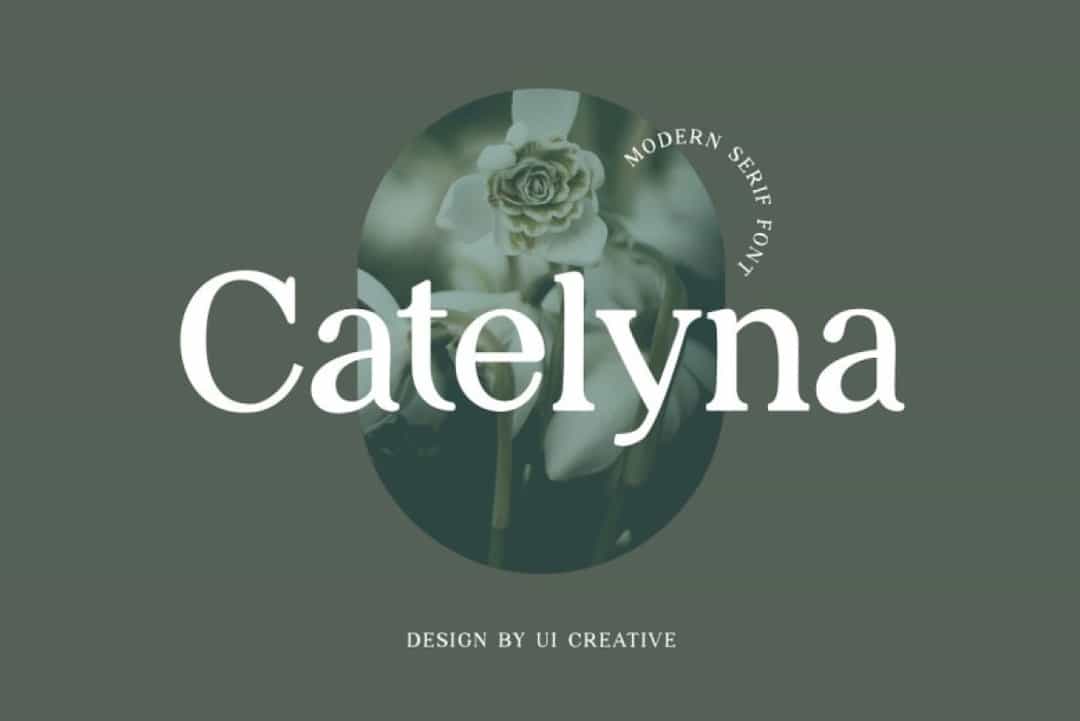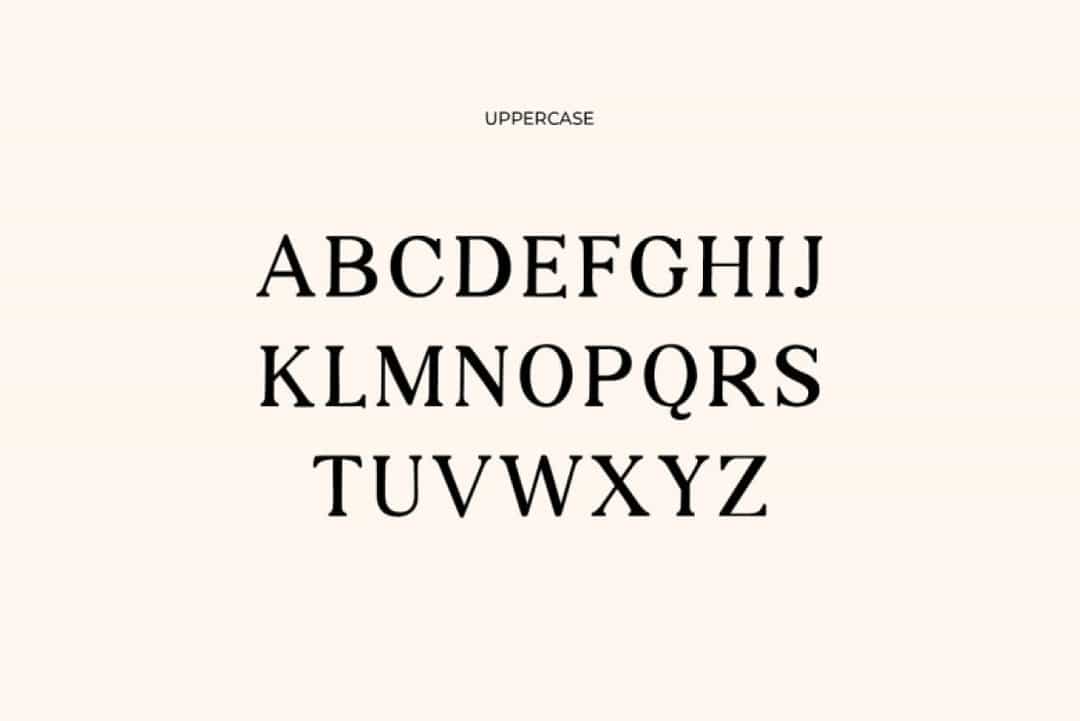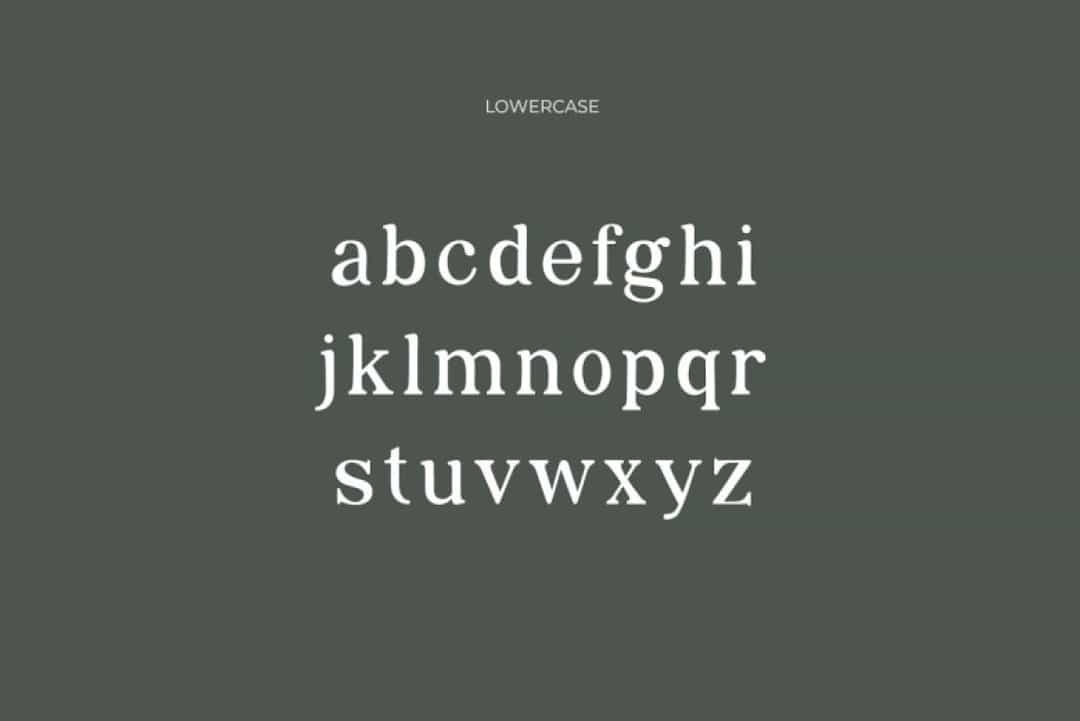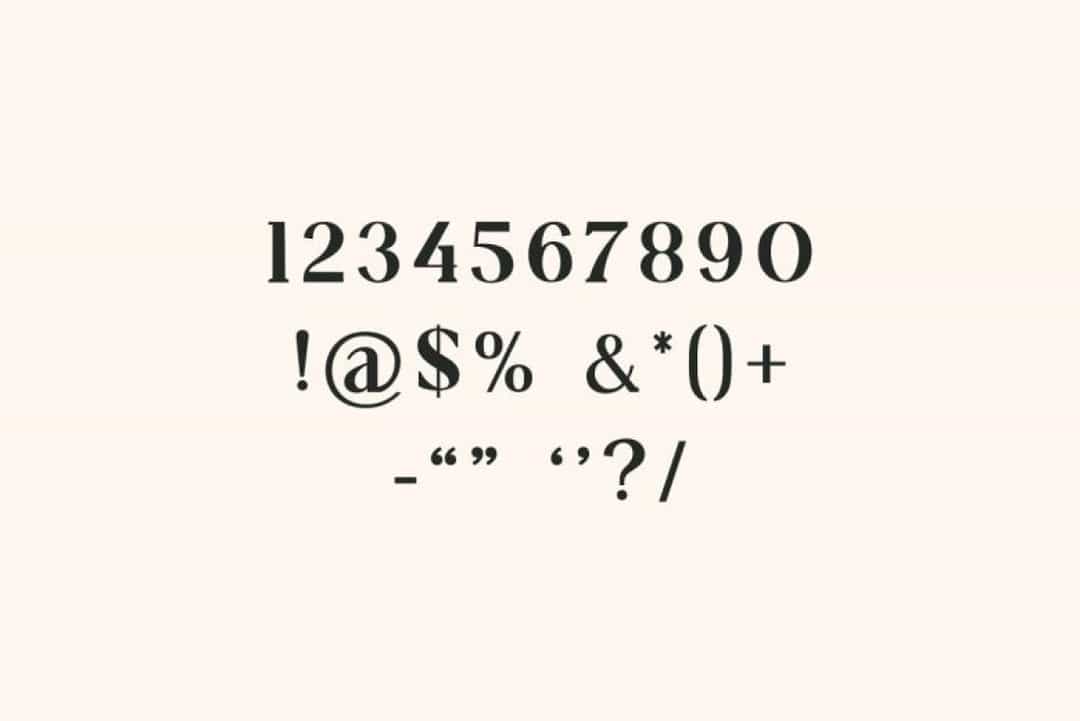
Catelyna can be described as an elegant serif font that is sleek, sophisticated and modern. This font makes the ideal addition to a range of designs – including stationary, signatures, wedding logos and typography quotes on book or magazine covers, headers on websites and clothing packaging design for branding as well as stationary packaging design and stationary branding.